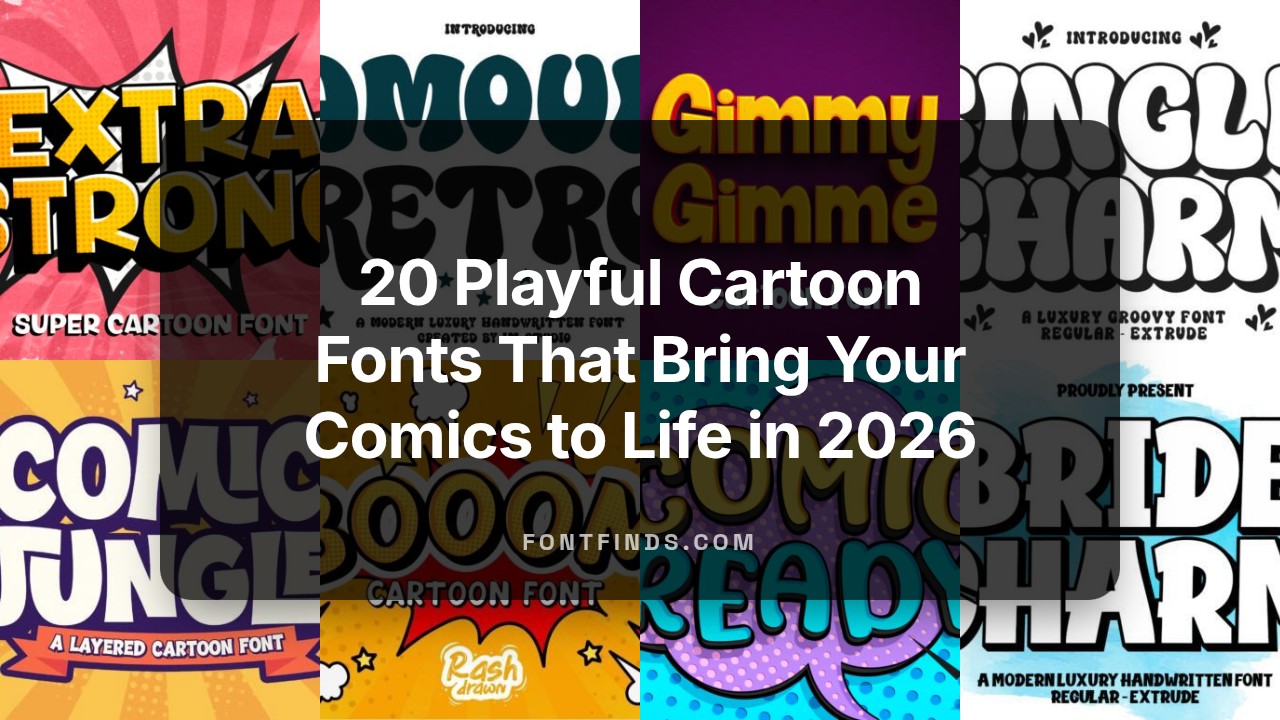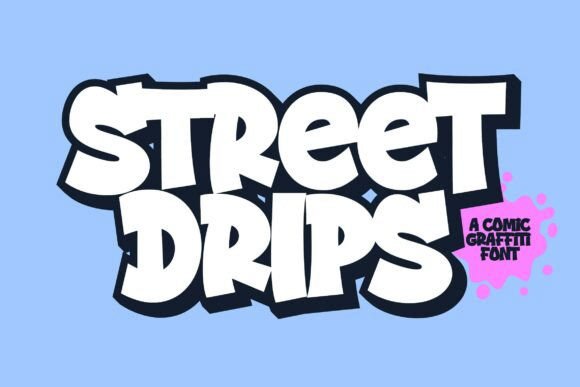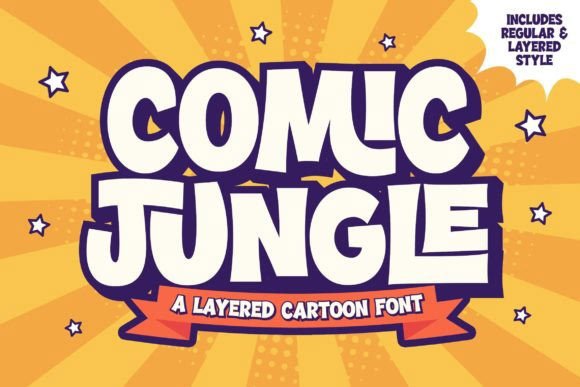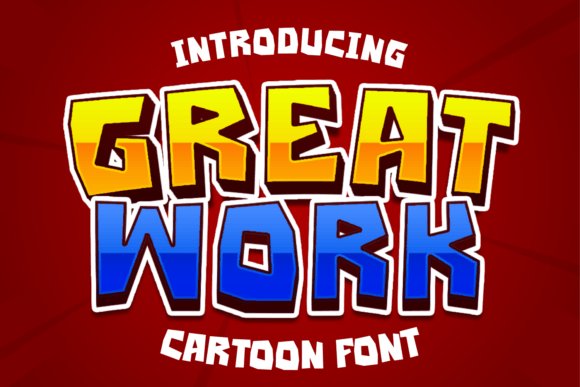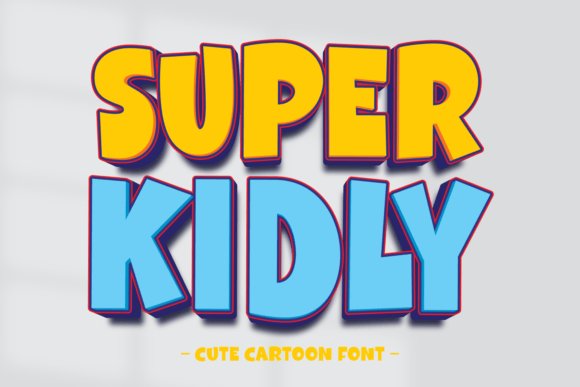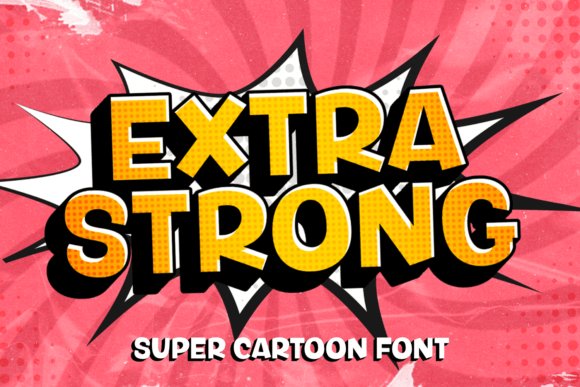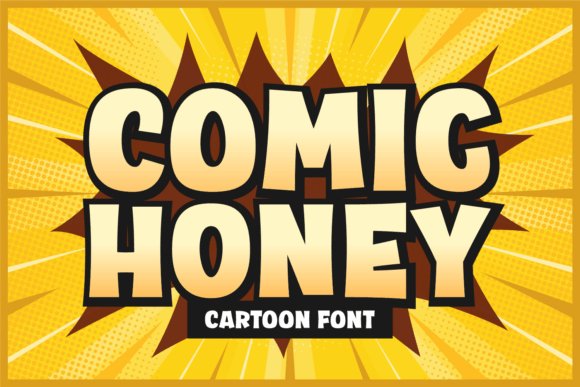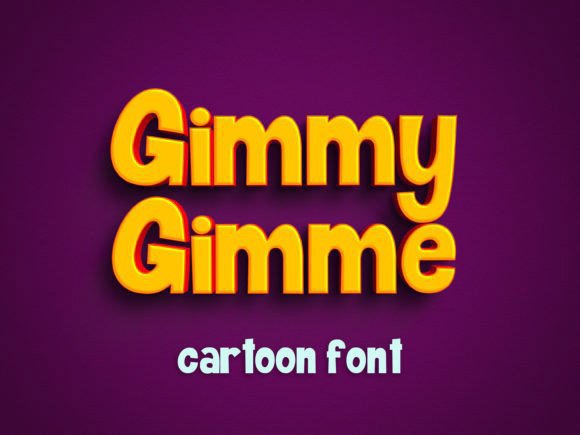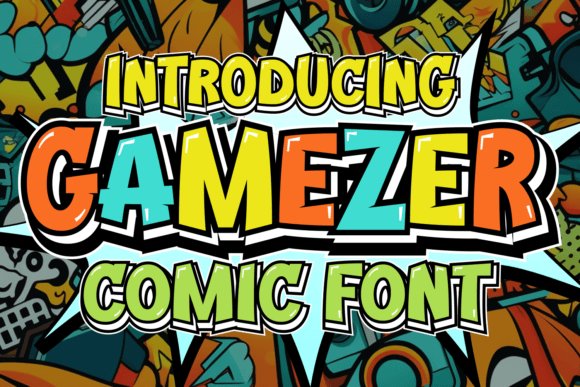
20 Playful Cartoon Fonts That Bring Your Comics to Life in 2026
Picking the right look for your creative work makes a huge difference. If you want to grab someone’s attention quickly, using cartoon fonts can add that much-needed energy to your page. These styles provide a sense of fun that standard typefaces just can’t match.
Pick a style that fits your comic book or a bright poster for a local event. The right choice sets the mood instantly. In 2026, designers are looking for more than just simple outlines as they want personality and weight in their lettering.
This list highlights several options that work well across different media. From thick, bubbly letters to sharp, action-oriented scripts, there is a style here for every kind of storyteller. Let’s look at some of the top picks available right now.
1. Comic Jungle Font
Comic Jungle Font
This typeface brings a wild energy to book covers and children’s literature. It features a dual-layer system with a regular and extrude version that adds depth to titles without needing complex design software.
When building a library of cartoon fonts for 2026 projects, this specific style works well for adventure themes. The thick outlines and rounded corners maintain readability even when printed on textured paper or small digital screens.
My Recommendation: I find the extrude layer particularly useful for making logos pop off the page. It suits jungle-themed storybooks or zoo-related branding where a sense of fun is necessary. Use it when you need a 3D effect without manually drawing shadows.
2. Great Work Font
Great Work Font
For projects that need an immediate visual impact, this typeface provides a heavy, blocky aesthetic that commands attention. Its thick strokes ensure that headlines are legible from a distance, making it a strong choice for poster headers or large-scale book titles.
The design feels energetic and purposeful, avoiding the overly soft edges found in some lighter styles. It serves as a reliable anchor for layouts that feature busy illustrations, providing a solid counterpoint to colorful artwork.
My Recommendation: This is my go-to choice for high-energy sports comics or achievement-based children’s books. The bold nature of the glyphs creates a feeling of confidence and excitement. I recommend using it for single-word callouts or short, punchy chapter titles.
3. Street Drips Font
Street Drips Font
Mixing urban aesthetics with a playful twist, this typeface captures a graffiti-inspired look that remains approachable. The dripping paint effects are integrated into the character shapes, giving each word a sense of motion and spontaneity.
It comes with an extrude option that helps the letters stand out against complex backgrounds often found in street-style art. This dual-font package allows for quick customization while maintaining a consistent visual identity across different media.
My Recommendation: I suggest using this for graphic novels centered on city life or modern teen fiction. It brings an edgy, handcrafted feel that standard typefaces lack. It works best for merchandise designs or stylized character names.
4. Extra Strong Font
Extra Strong Font
This typeface lives up to its name by offering exaggerated proportions and lively curves. It belongs in a collection of cartoon fonts designed to convey power and vitality, especially for hero-based narratives or action-packed sequences.
The character weight is distributed in a way that feels heavy yet buoyant. This balance prevents the text from feeling too dark on the page, allowing the playfulness of the design to shine through even in dense compositions.
My Recommendation: I really like how the active curves mimic the motion of an animated character. It is ideal for superhero comics or any story where characters have larger-than-life personalities. It fills the space beautifully on a square book cover.
5. Super Kidly Font
Super Kidly Font
Gentleness is the defining trait of this typeface, featuring soft, rounded terminals and a friendly bounce. It avoids sharp angles entirely, creating a welcoming atmosphere for early childhood education materials and nursery-themed books.
Its simplicity makes it highly accessible for young readers who are still learning letter shapes. The uniform thickness across all characters provides a clean look that integrates well with watercolor illustrations or minimalist vector art.
My Recommendation: I find this typeface perfect for baby board books or preschool learning apps. The approachable style reduces visual tension, making the reading experience more enjoyable for toddlers. Use it whenever you need to project warmth and kindness.
6. Comic Honey Font
Comic Honey Font
Comic Honey brings a thick, bubbly presence to any page. Its rounded edges feel soft and welcoming, making it a great pick for children’s literature or school posters. The letters have a heavy weight that stays readable even when printed at smaller sizes on matte book paper.
Choosing the right typeface shouldn’t feel like a chore. With these 20 options, you have a solid starting point for any fun project on your calendar this year. Each selection brings a unique vibe that helps your text stand out without looking messy.
Keep testing different weights and sizes to see what fits your layout best. Great design often comes down to how well your words and images work together. These styles ensure your message stays clear and high-energy for your audience throughout 2026.